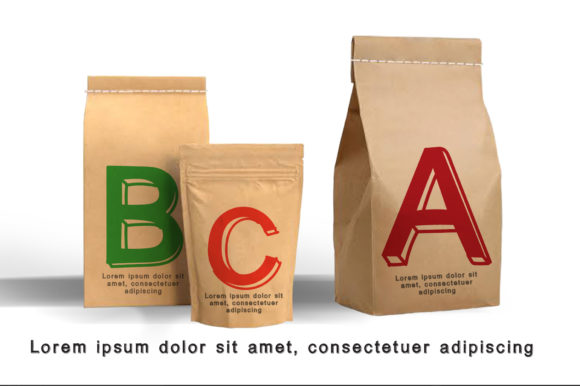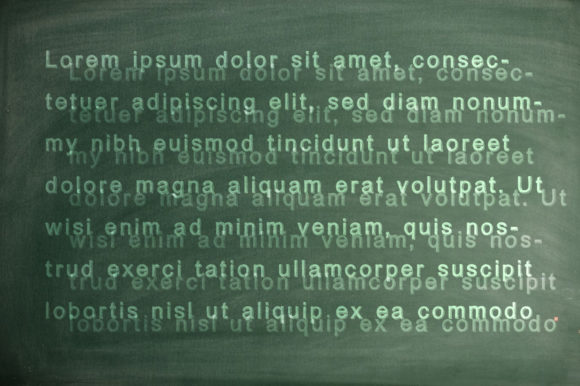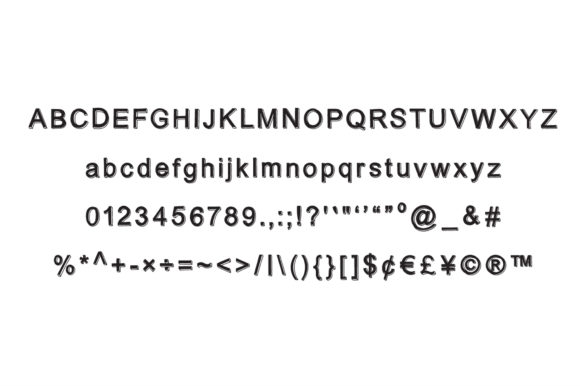
Enter the Kids 3D Outline Black Font, a sleek and modern display font designed to elevate any creation. With its simple yet striking design, this font is the perfect asset to add a touch of sophistication to your next project. Whether you’re working on a logo, social media graphic, or digital design, the Kids 3D Outline Black Font is sure to make a lasting impression.
This versatile font is a valuable addition to any designer’s library, offering endless possibilities for creative expression. With its clean lines and bold typography, the Kids 3D Outline Black Font is sure to become a go-to choice for designers seeking a modern and eye-catching look.
Kids 3D Outline Black Font Key Features
- Font Type: 3D Outline Black Font, designed specifically for kids-related content.
- Size: Available in various font sizes, ranging from 12pt to 72pt, to accommodate different design requirements.
- Resolution: Optimized for high-resolution displays, ensuring crisp and clear text rendering at 300 DPI (dots per inch) or higher.
- Unique Characteristic: The 3D outline effect gives the font a playful and engaging appearance, making it ideal for children’s educational materials, games, and other kid-friendly content.
- Legibility: Designed to be highly legible, even at smaller font sizes, making it suitable for use in a variety of contexts, including signage, labels, and body text.
Designer Review: Kids 3D Outline Black Font
Overall, I’d say the Kids 3D Outline Black Font is a fun, playful font that’s perfect for creating engaging designs for kids. Here are some of its strengths: ✨
- Unique 3D outline design that adds depth to text
- Very readable even at smaller font sizes
- Works well with bright, bold colors to create a lively atmosphere
- Available in various font styles and weights for flexibility
- May not be suitable for professional or formal designs
- Some users may find the 3D effect distracting or overused
- Not as versatile as other fonts for more complex designs
Overall, I think the Kids 3D Outline Black Font is a great choice for designers who want to create fun, kid-friendly designs. While it may not be perfect for every project, it’s a solid option for those who want to add some visual interest and playfulness to their designs.
“Kids 3D Outline Black Font” is ideal for creating visually appealing and engaging designs for children’s products, educational materials, and entertainment brands. It can be used for:
- Product labels and packaging
- Marketing materials and advertising
- Website design and UI elements
What is the recommended font size for using the Kids 3D Outline Black Font?
The recommended font size for the Kids 3D Outline Black Font is between 12pt and 24pt. This range provides optimal readability and visual appeal for the 3D outline design. However, you can experiment with different font sizes to achieve the desired effect for your specific project.